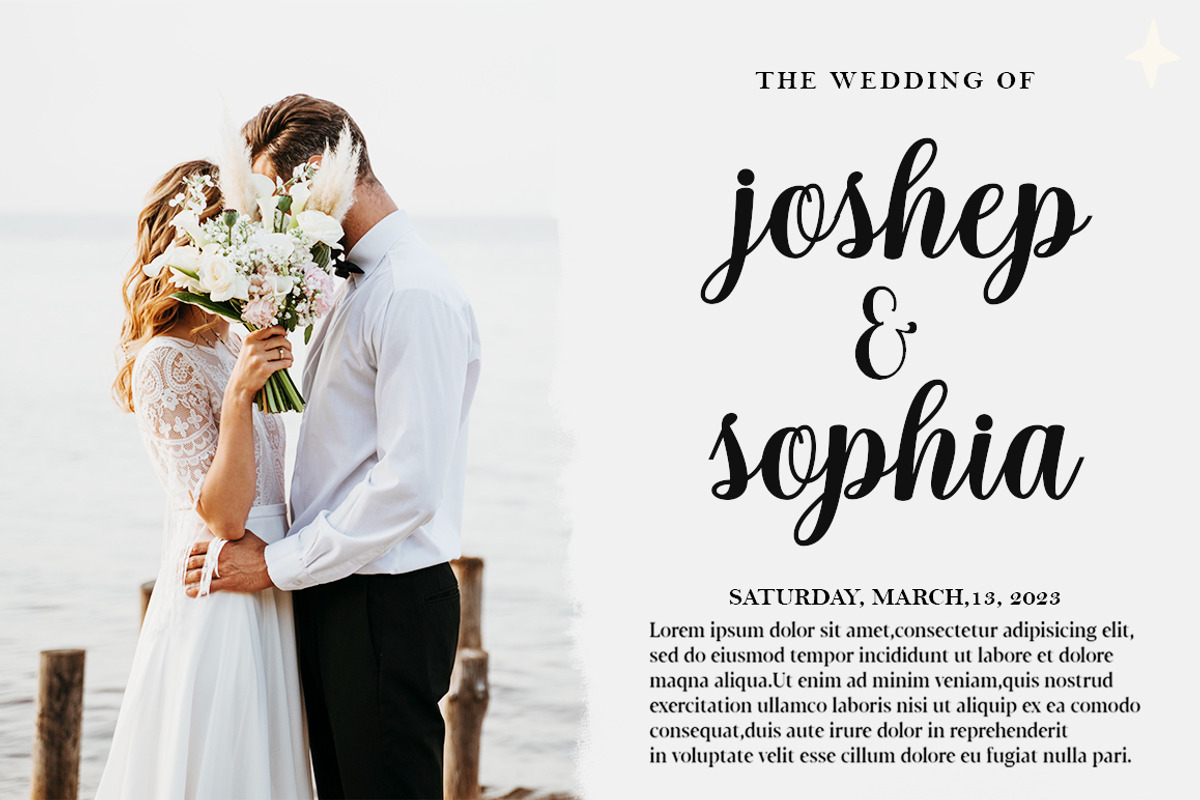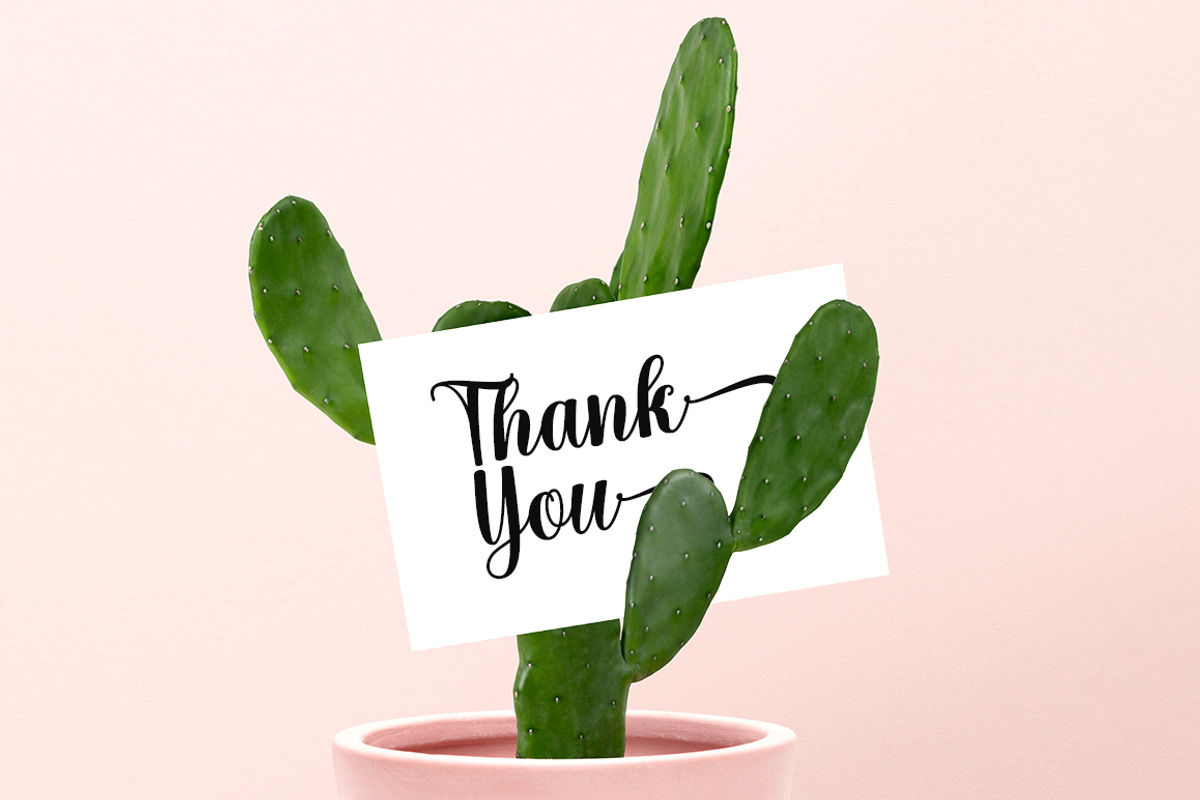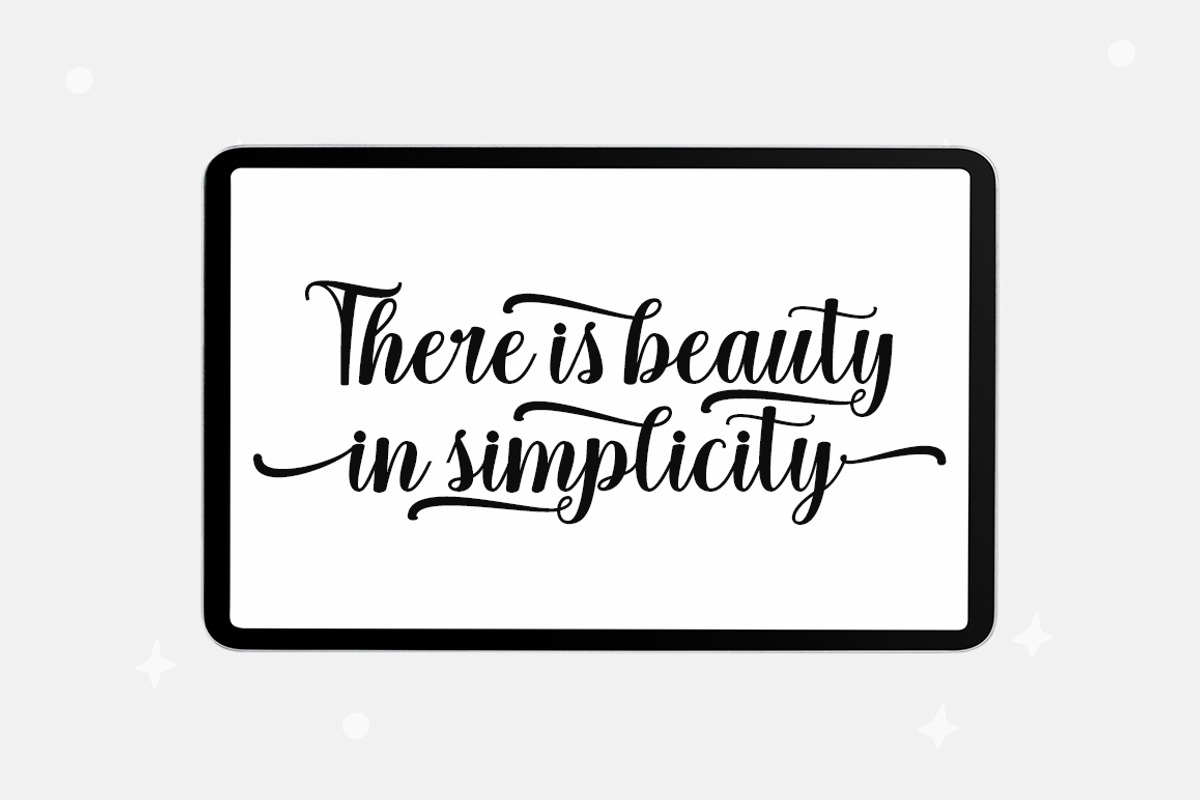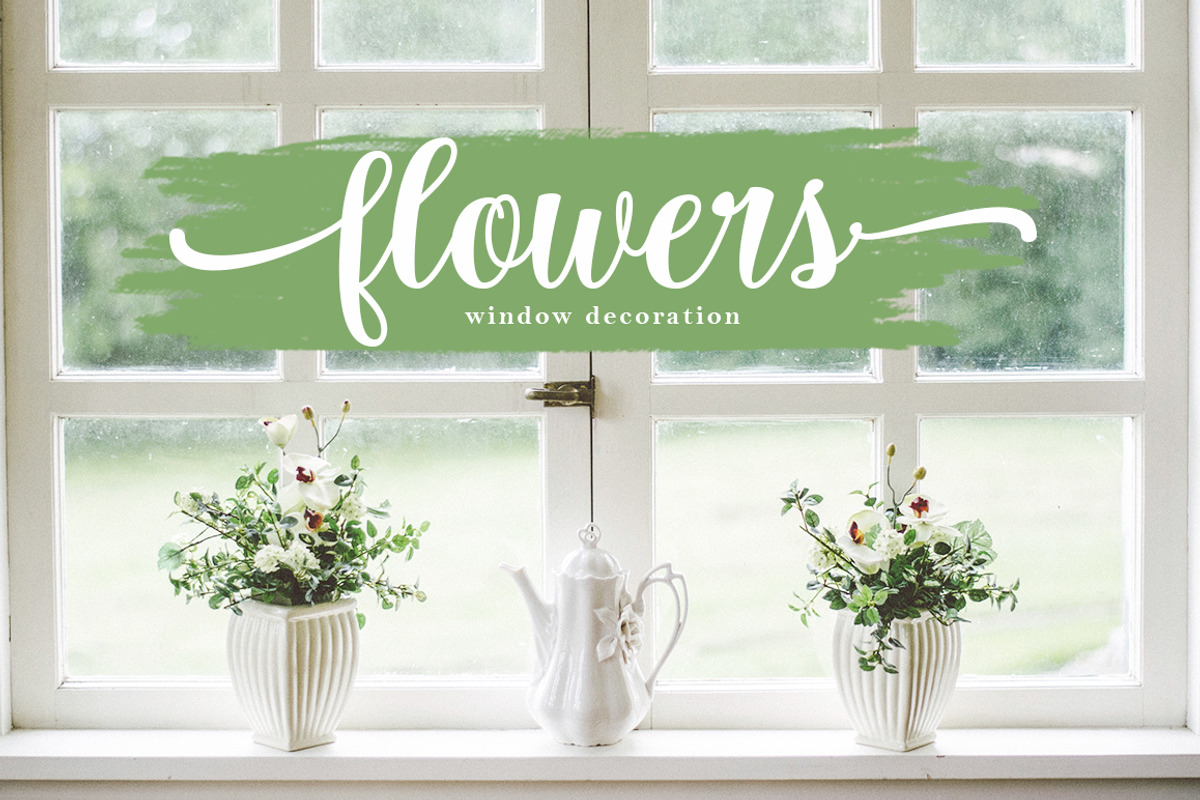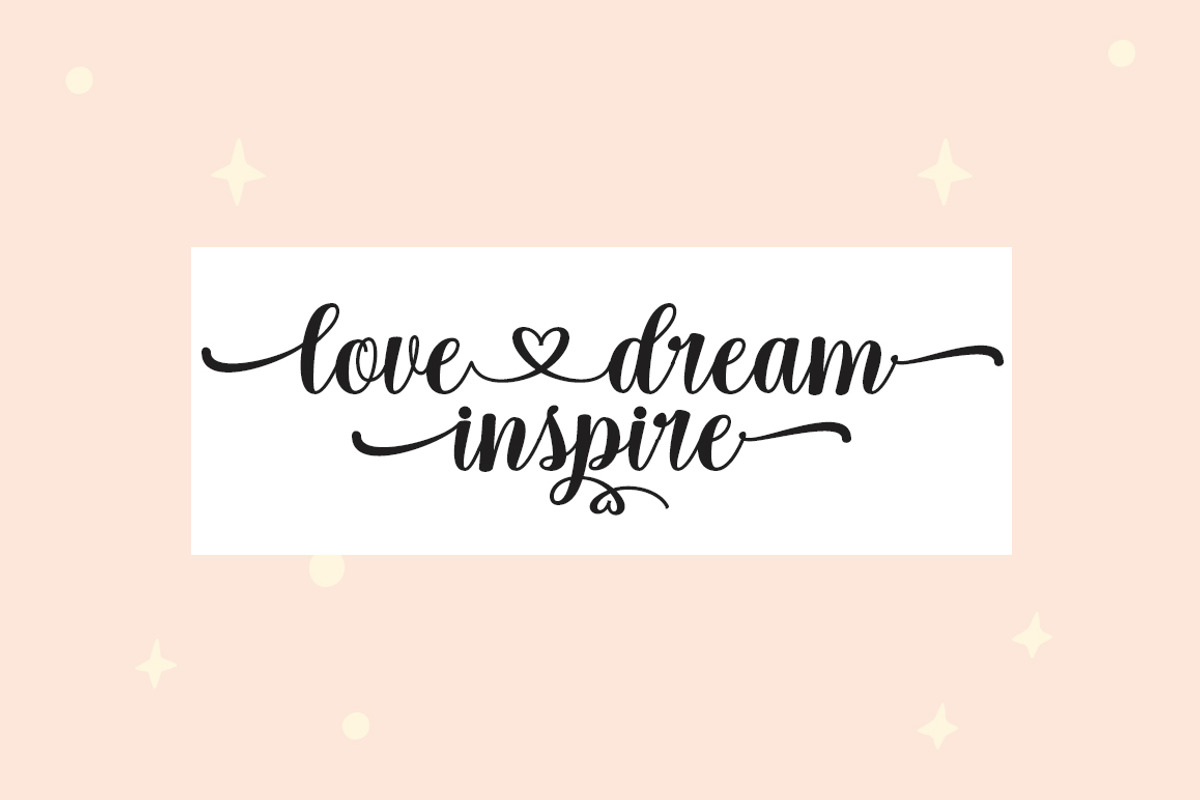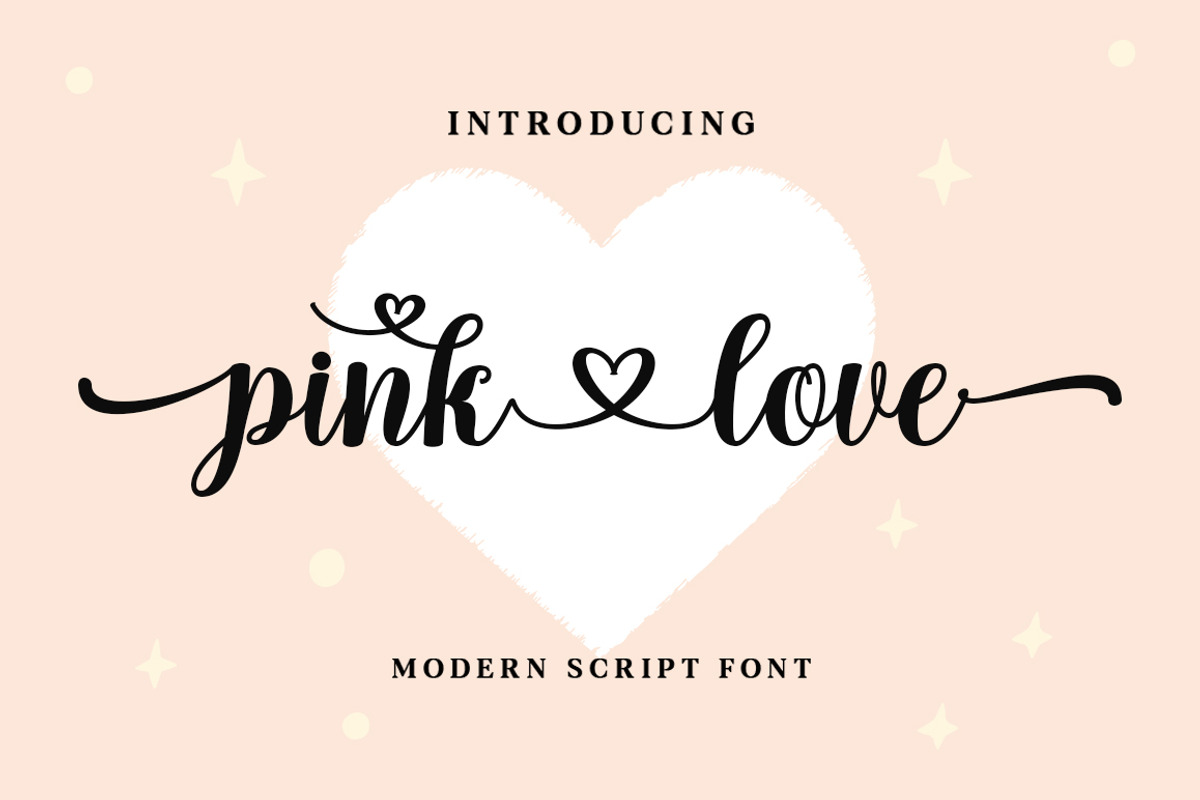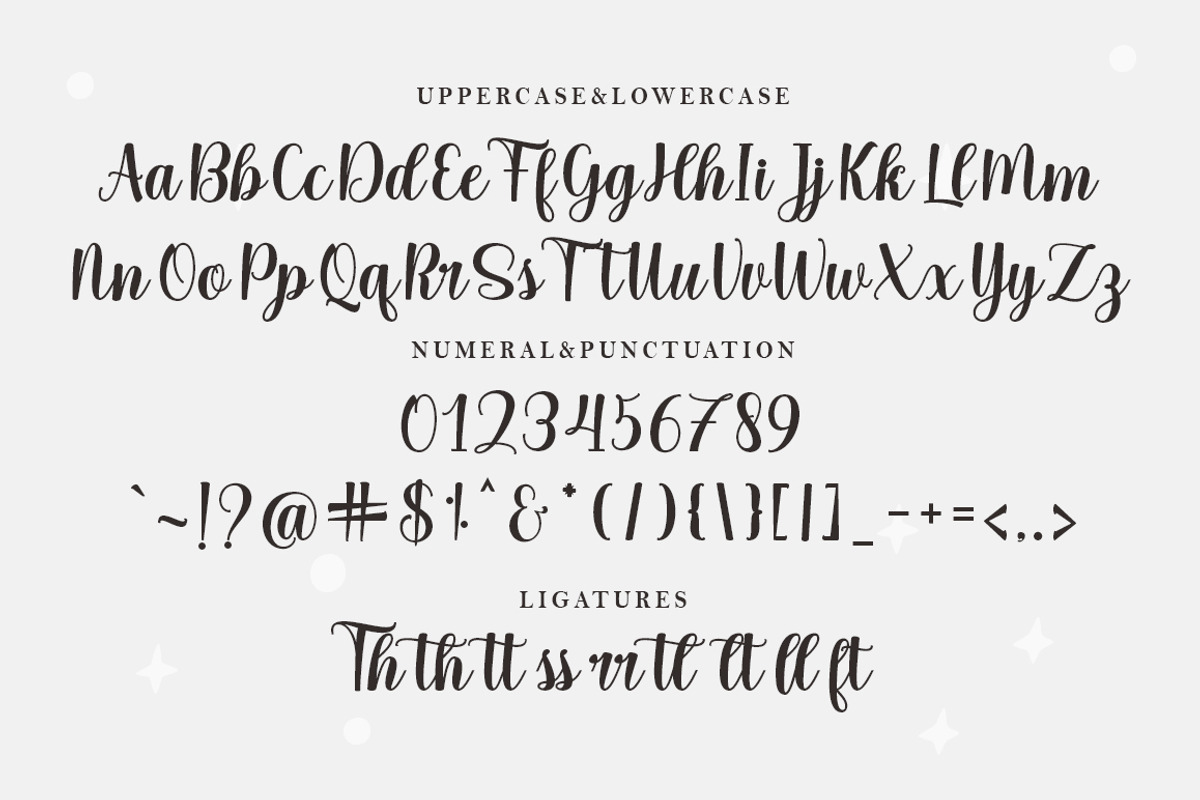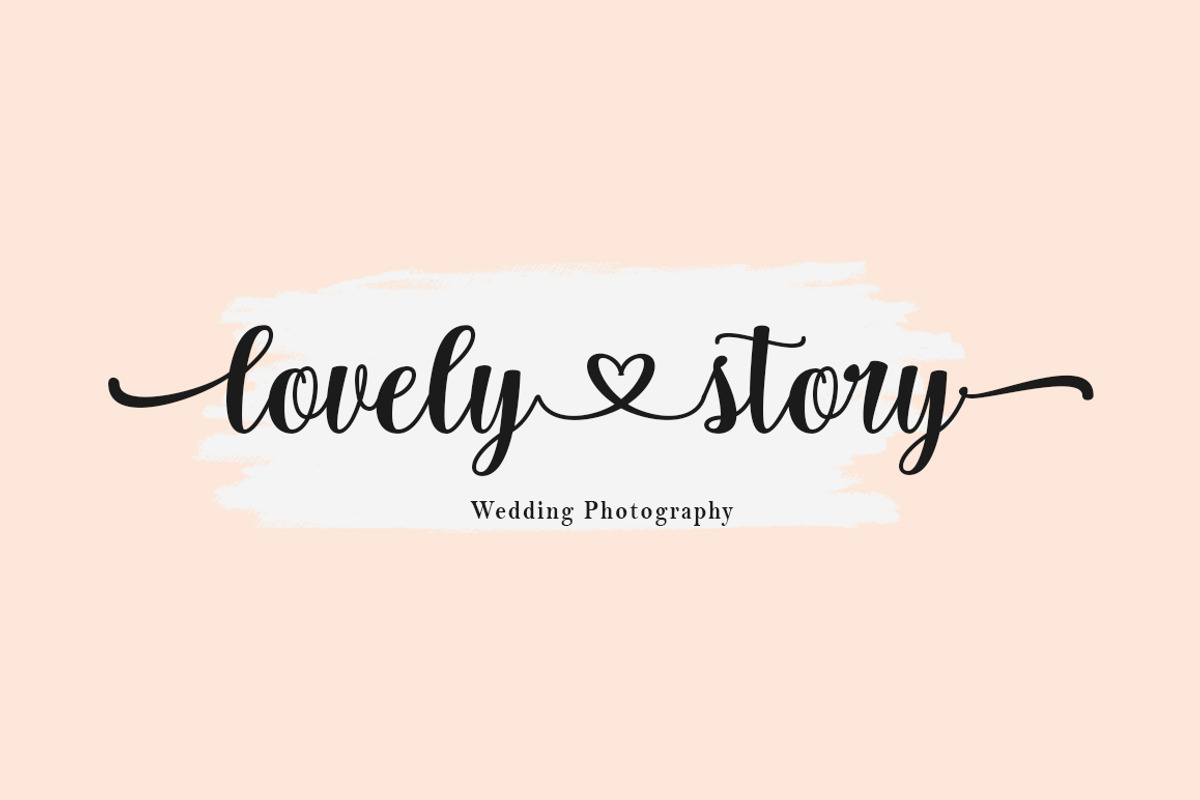
Pink Love
Pinky Love is a modern calligraphic design, including Regular. This typeface is casual and pretty with a sweep. It can be used for various purposes. such as logos, product packaging, wedding invitations, branding, headlines, signage, labels, signatures, book covers, posters, quotes, and many more.